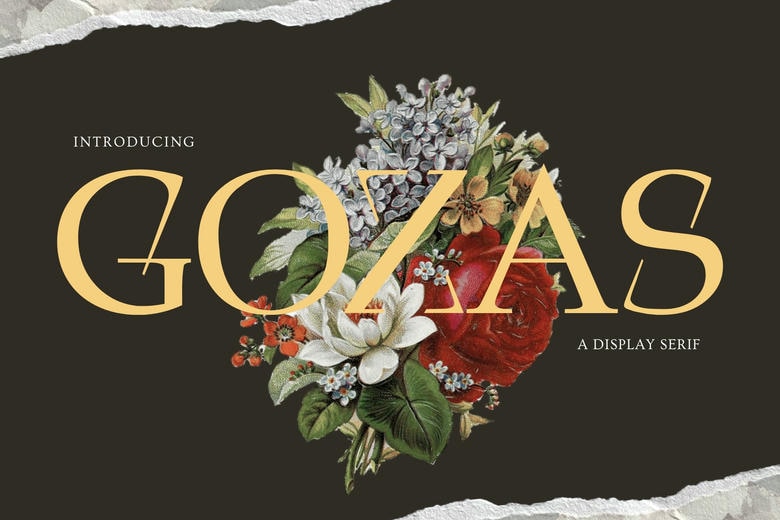
Gozas Font
Gozas remains another exquisite display typeface designed with an art deco influences and slender and remarkably stretched out serifs that give it that glamour feel. This font traces back to the twenties but comes with distinct clean and crisp edges with precise design aesthetics.
It can be best used in luxury branding, articles and editorials, as well as in high-class packaging, because there is something both imposing and lavish about the style and it immediately conveys a sense of the luxurious.
Gozas Serif Font